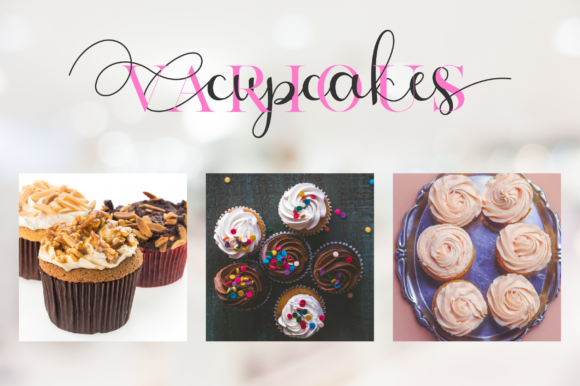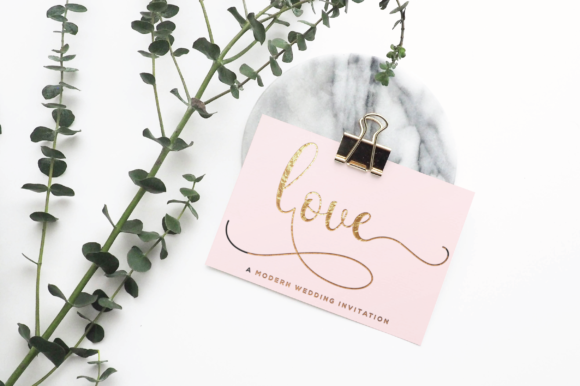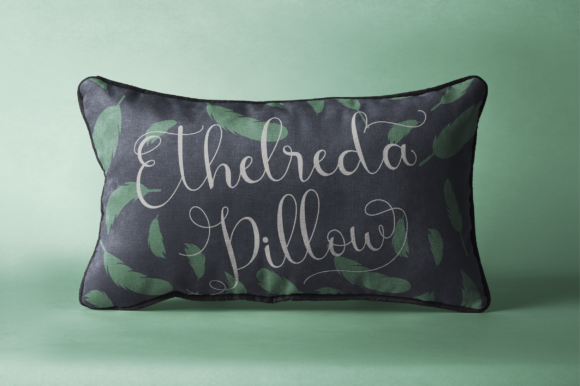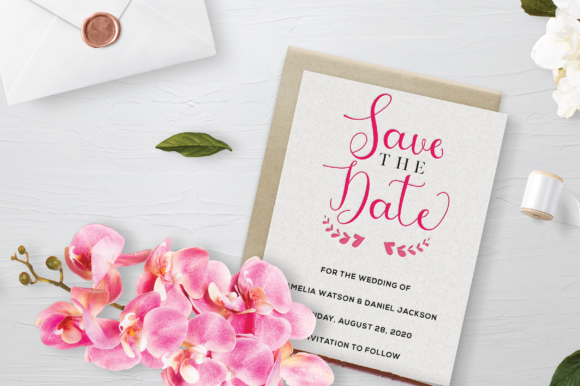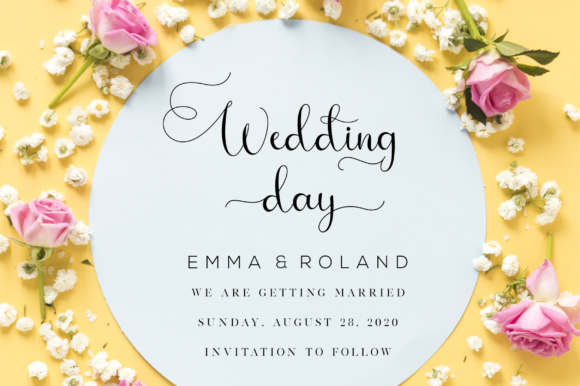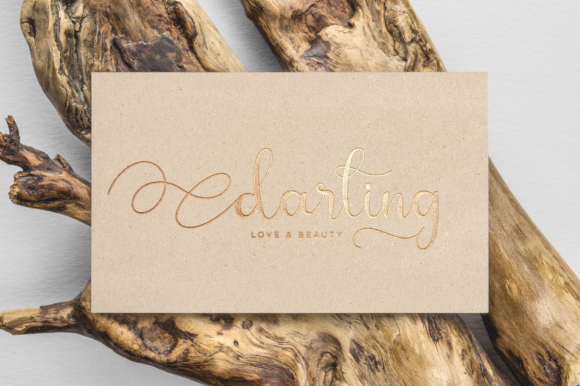
Introduction to Bougainvillea Script Font
As a designer, have you ever found yourself stuck in a creative rut, searching for that perfect font to elevate your project from good to great? You know, that one element that sets your design apart and makes it truly unforgettable? For me, that moment happened when I stumbled upon the Bougainvillea Script Font – a game-changing design resource that has since become a go-to for my creative projects.
With its modern and classy look, the Bougainvillea Script Font is a high-quality addition to any design arsenal. Whether you’re working on a logo, branding, invitation, or social media campaign, this versatile font is sure to add a personal touch that will leave a lasting impression on your audience. And the best part? It’s available for free download, making it an accessible resource for designers of all levels.
From transparent backgrounds to beautiful watermarks, the Bougainvillea Script Font offers endless possibilities for creative expression. In this article, we’ll dive deeper into the world of this stunning font and explore its many uses, so be sure to stick around for some valuable insights and design inspiration.
Key Features of Bougainvillea Script Font
- High-quality, elegant script font ideal for creative projects and design resources
- Includes a transparent background, making it perfect for overlaying on images or videos
- Designed to be highly versatile, suitable for a wide range of design applications
- Unique, hand-drawn design elements add a touch of whimsy and personality to any design
Honest Review: Bougainvillea Script Font
As a designer, I’m always on the lookout for high-quality design resources to elevate my creative projects. The Bougainvillea Script Font is one such resource that caught my attention, and I’m excited to share my honest review.
Here’s what I like about this font: ✨ It’s perfect for adding a touch of elegance and sophistication to any design project. ✨ The font is highly customizable, allowing me to adjust the size, color, and style to suit my needs. ✨ The free download option is a huge plus, making it accessible to designers of all levels.
Some limitations I’ve encountered: ⚠️ The font doesn’t come with a transparent background, which can make it tricky to use on dark backgrounds. ⚠️ The font is a bit on the heavier side, which can make it difficult to read in small sizes.
Overall, I’m impressed with the Bougainvillea Script Font. While it’s not without its limitations, its high-quality design and customization options make it a valuable resource for any designer. I would definitely recommend it for creative projects that require a touch of sophistication.
Here are some key features of the Bougainvillea Script Font:
- Customizable
- Design resource
Bougainvillea Script Font
Getting the Most Out of the Bougainvillea Script Font
To get the most out of the Bougainvillea Script Font, use it in combination with other design elements, such as images and shapes. Experiment with different font sizes, colors, and styles to create a unique visual effect. You can also use the font to create a consistent brand identity across your marketing materials.
The Bougainvillea Script Font is ideal for a variety of creative projects, including wedding invitations, party decorations, and branding materials. It’s also a great choice for designers looking for a high-quality, free download font that can be used in a variety of design applications.